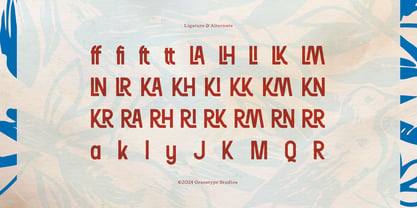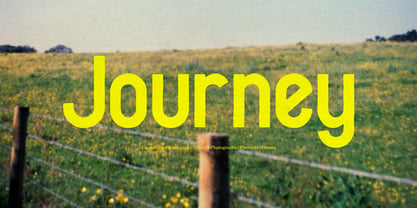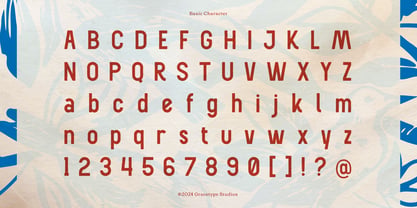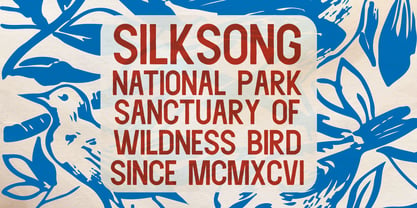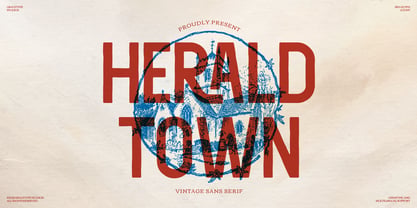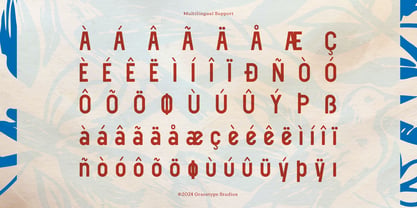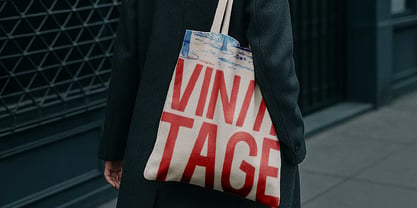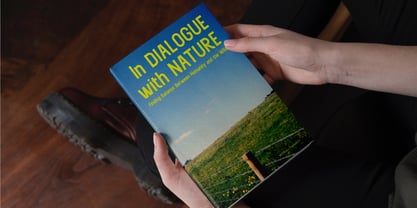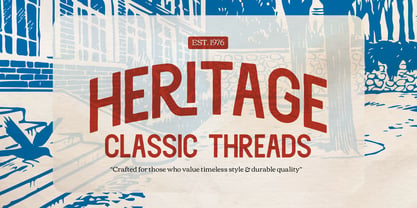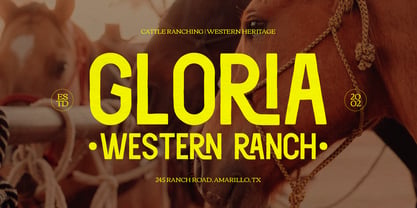
Herald Town
by Tini Fitriani
The Herald Town Font Family was designed by and published by Tini Fitriani. Herald Town contains 1 styles. More about this family
Herald Town | Vintage Sans Serif, from Gracetypestudio, suitable for any projects such as: logos, branding projects, homeware designs, product packaging, mugs, quotes, posters, shopping bags, t-shirts, book covers, name card, invitation cards, greeting cards, label, photography, watermark, special events, and all your other lovely projects that need a Vintage Sans Serif taste